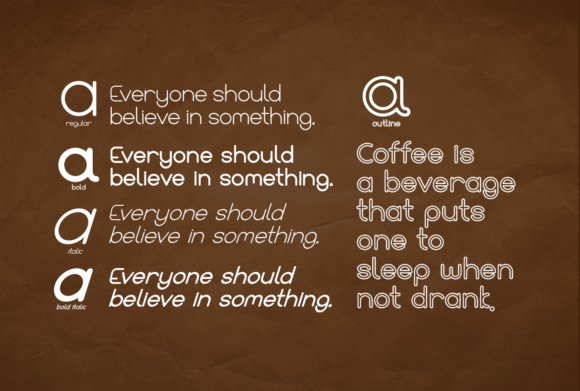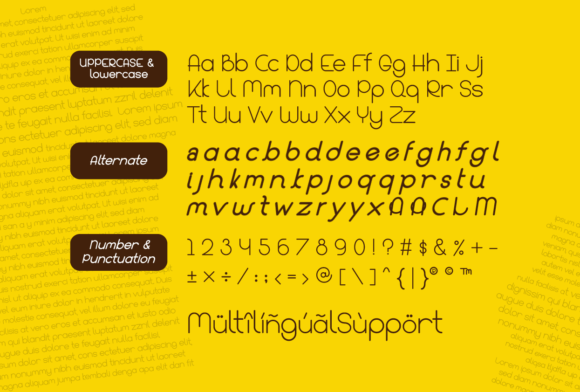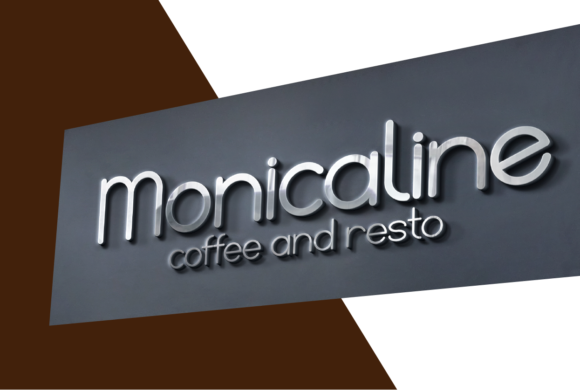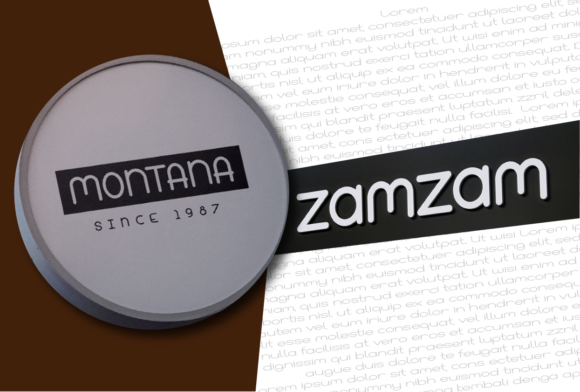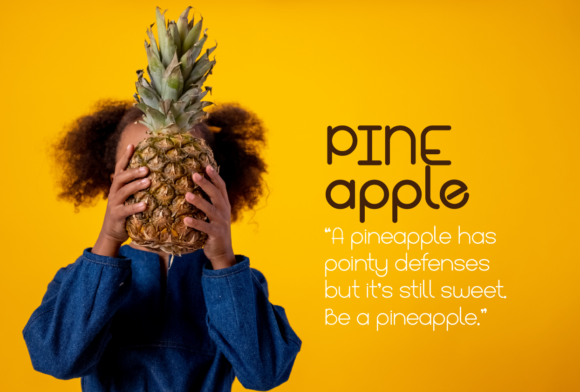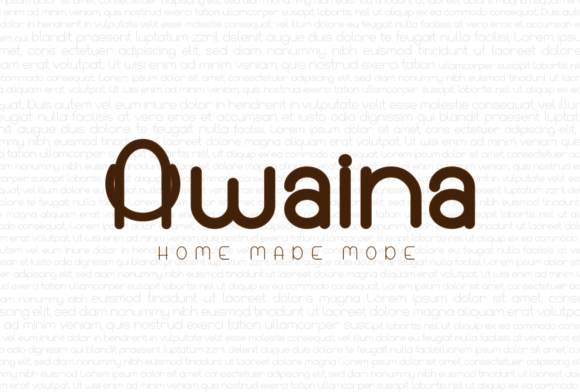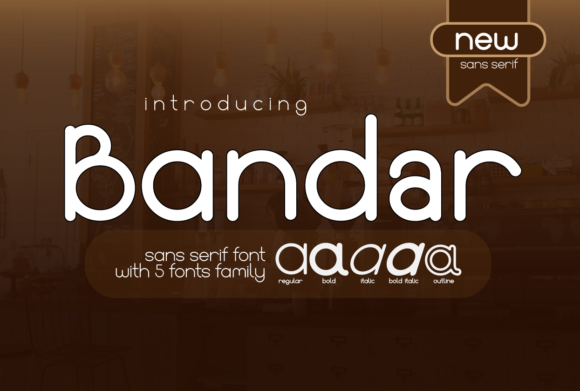
Discover the Versatility of Bandar Font: A Minimal and Neat Sans Serif Marvel
In the ever-evolving world of typography, finding the perfect font that brings your creative projects to life can be a daunting task. However, if you’re on the lookout for a typeface that exudes simplicity, elegance, and versatility, look no further than the Bandar Font. This minimal and neat sans serif font is designed to seamlessly integrate into a wide array of projects, making it a go-to choice for designers and crafters alike.
What Makes Bandar Font Stand Out?
Bandar Font is characterized by its clean lines, straightforward design, and a contemporary aesthetic that appeals to the modern designer. Its minimalistic approach doesn’t compromise on style; instead, it offers a fresh and uncluttered look that’s perfect for projects requiring a touch of sophistication. Whether you’re working on a branding project, a website design, or crafting beautiful printable art, Bandar Font can elevate your work with its subtle yet impactful presence.
Versatility at Its Core
One of the key advantages of Bandar Font is its incredible versatility. Its design is versatile enough to be used in an extensive range of projects. From business cards and brochures to digital interfaces and social media graphics, Bandar Font can adapt to any context, ensuring your designs look coherent and professionally crafted. This adaptability makes it an invaluable asset in a designer’s toolkit, saving time and effort in searching for project-specific fonts.
Bandar Font takes convenience to the next level with its PUA (Private Use Area) encoding. This feature allows users to access all the glyphs and swashes easily, providing greater creative freedom. PUA encoding means that you can unlock and utilize a wide range of special characters and decorative elements without needing to navigate complex font menus or rely on external design software. This seamless integration into your design workflow enhances productivity and lets you focus on bringing your creative visions to life.
Enhancing Your Creative Projects
With Bandar Font, you have the opportunity to add a distinctive touch to your projects. Its neat and minimalistic design serves as a canvas, allowing your content and creative ideas to take center stage. When you’re looking to make your designs stand out in a crowded digital landscape, the subtle sophistication of Bandar Font can be a game-changer. It’s not just a font; it’s a tool that can transform your creative concepts into visually appealing and engaging content.
Why Choose Bandar Font?
There are several reasons why Bandar Font should be on your radar:
- Universal Compatibility: Its sans serif design makes it suitable for both digital and print projects.
- Ease of Use: PUA encoding provides easy access to glyphs and swashes, streamlining your design process.
- Contemporary Aesthetic: Offers a modern look that’s perfect for brands and projects aiming for a clean and professional image.
- Flexibility: Can be used across a variety of mediums, from web design to marketing materials.
Bandar Font is more than just a typeface; it’s a versatile design tool that can elevate your projects with its minimalistic charm and contemporary appeal. Whether you’re a professional designer or a crafter with a passion for typography, Bandar Font offers the perfect blend of style, functionality, and ease of use. By incorporating it into your design arsenal, you’ll be well-equipped to create stunning, professional-grade projects that stand out from the crowd. So, why wait? Explore the possibilities with Bandar Font today and discover how it can transform your creative workflow.